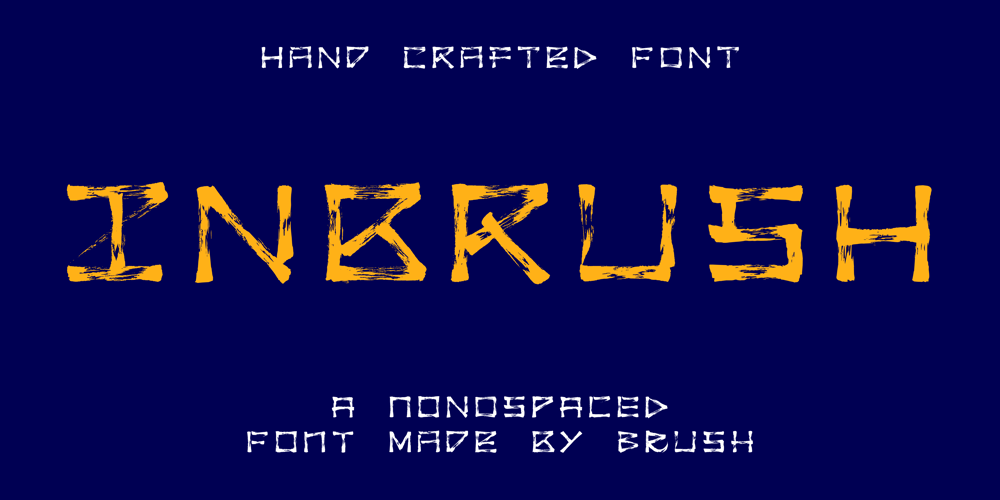
Inbrush Font Family was designed by Alex Camacho and published by Alex Camacho Studio. Inbrush contains 1 styles and family package options. Inbrush is a monospaced font whose letters and characters each occupy the same amount of horizontal and vertical space. All the characters, including diacritics, fits in the same space.This makes this font ideal for texts in both directions, horizontal and vertical. A fun and playful display font made by brush to make interesting compositions.